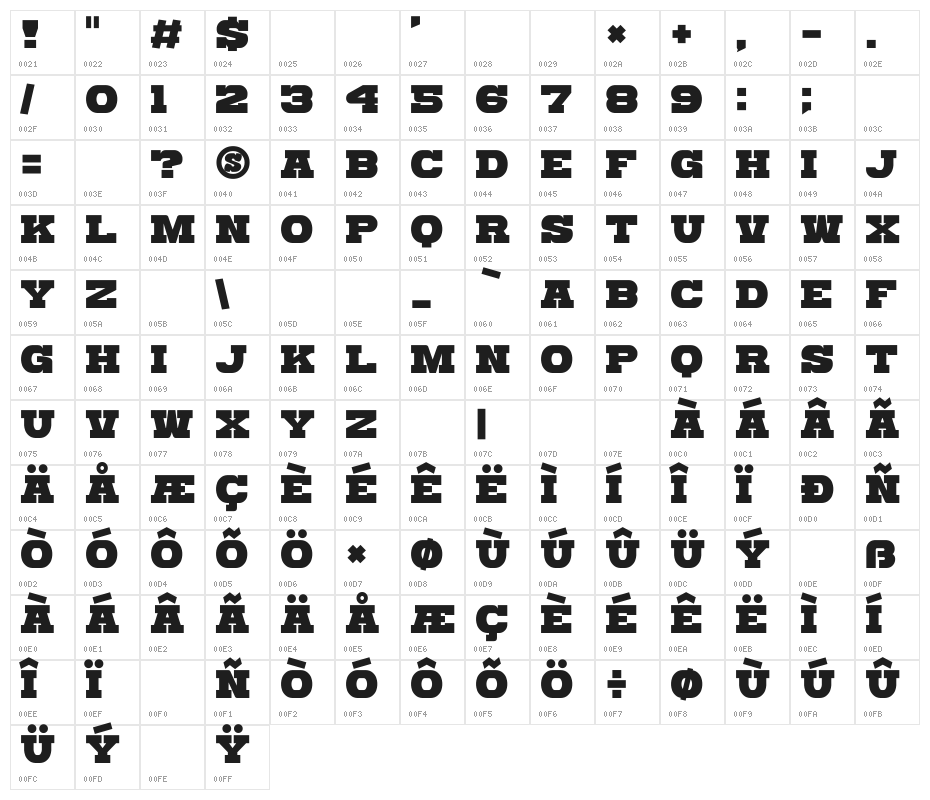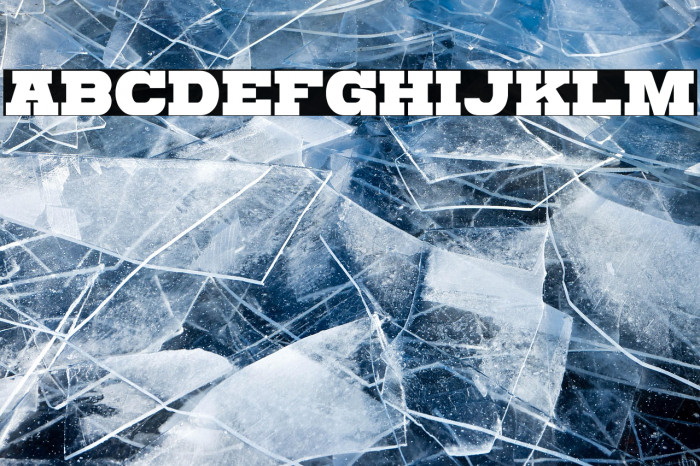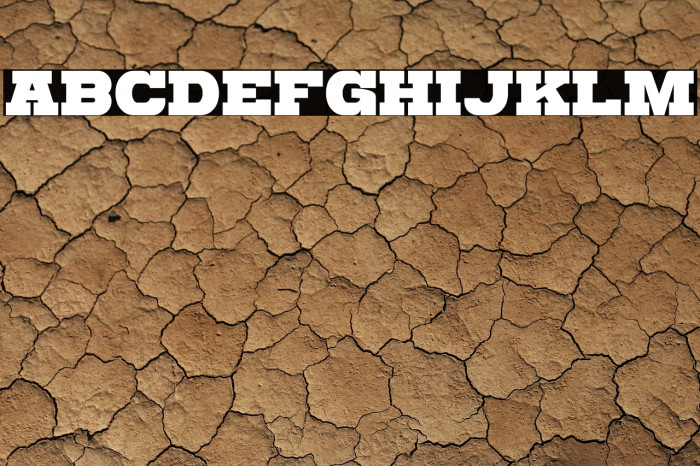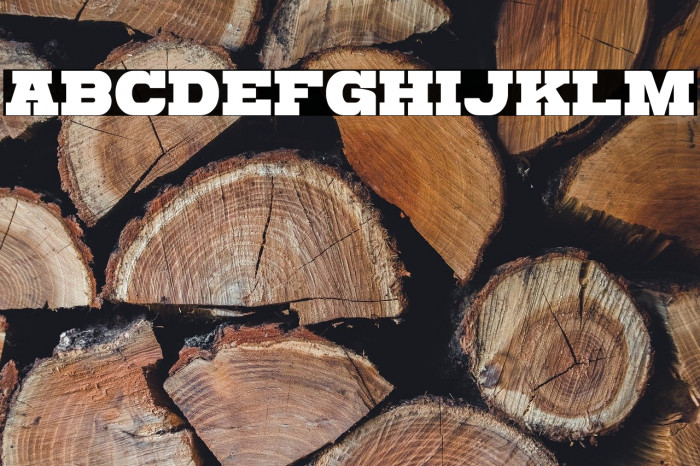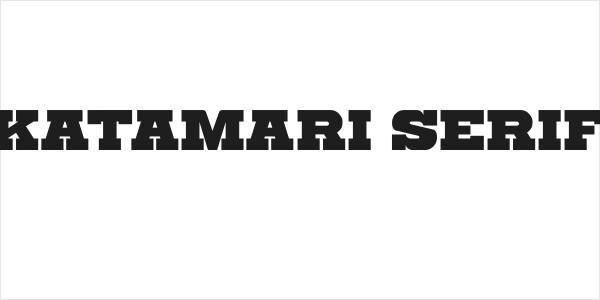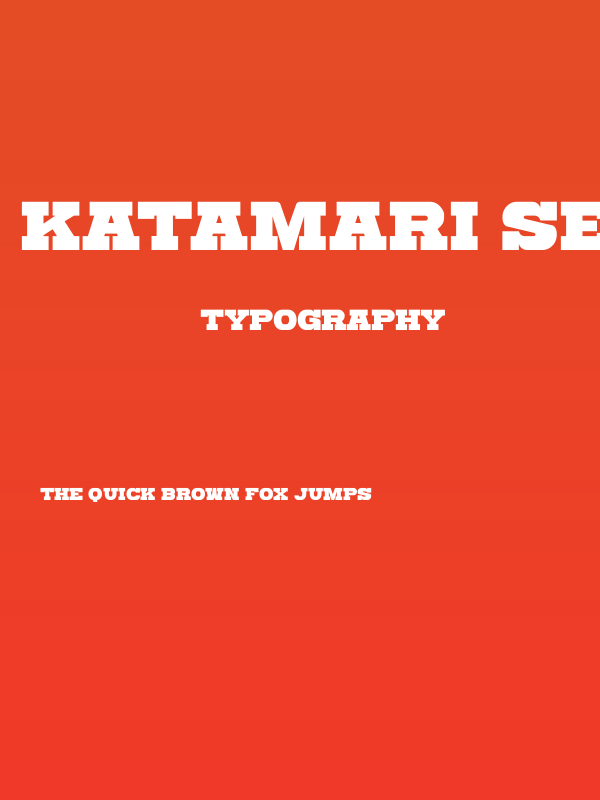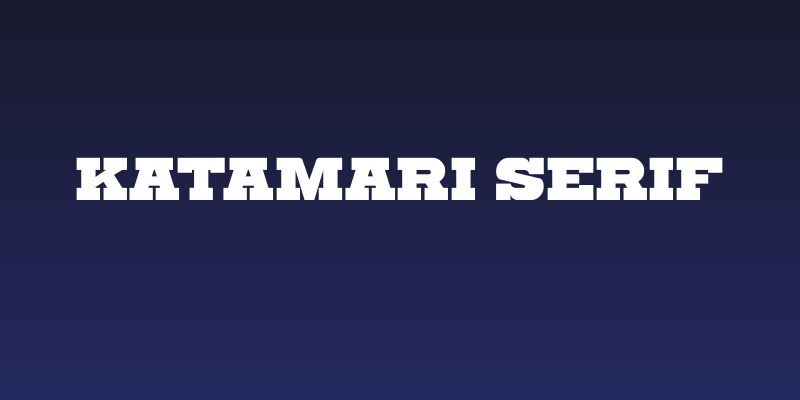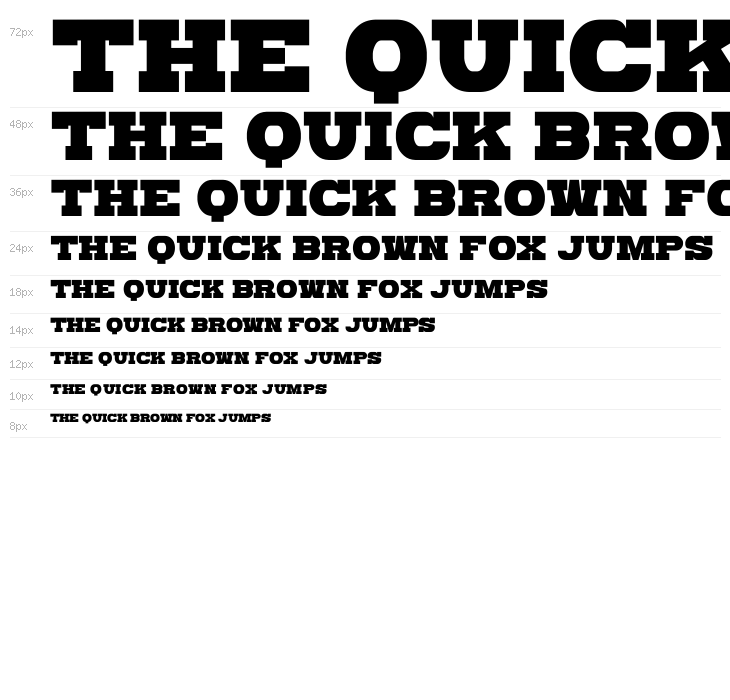
Katamari Serif Font
Katamari Serif Description
This font features bold, block-like characters with a strong presence, characterized by thick strokes and slab serifs. The uppercase and lowercase letters maintain a consistent weight, contributing to a uniform appearance. The numerals and special characters follow the same robust design, ensuring readability and impact. The overall style is reminiscent of vintage poster fonts, with a modern twist that makes it suitable for attention-grabbing headlines and logos. The font's design is both functional and decorative, offering versatility in various design contexts.
| Overall Style | Vintage, Modern |
| Proposed Projects | Ideal for posters, logos, branding materials, and headlines that require a strong visual impact. |